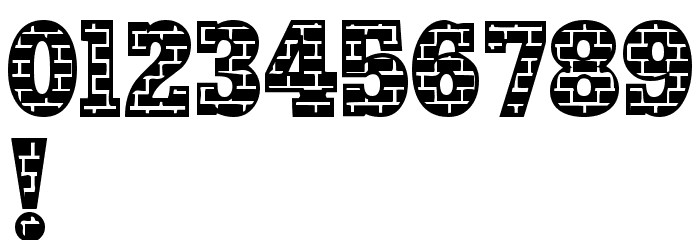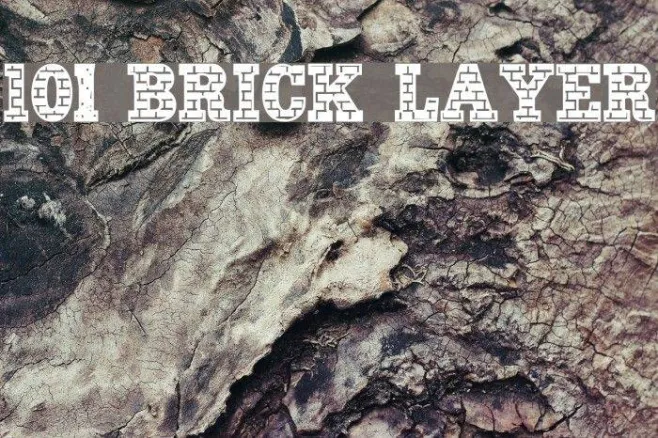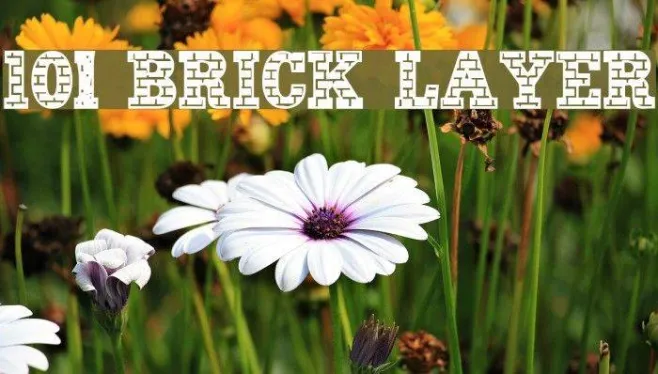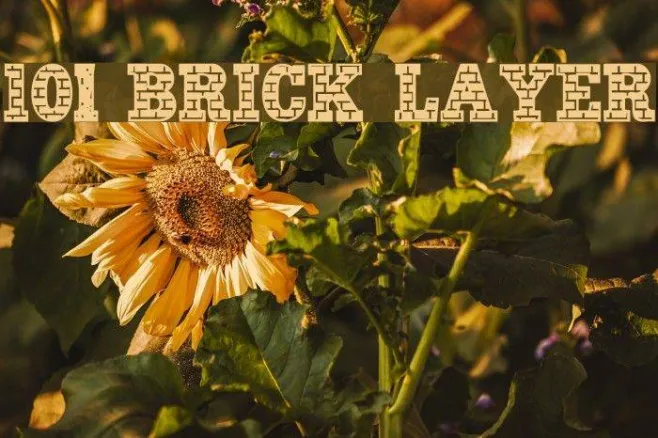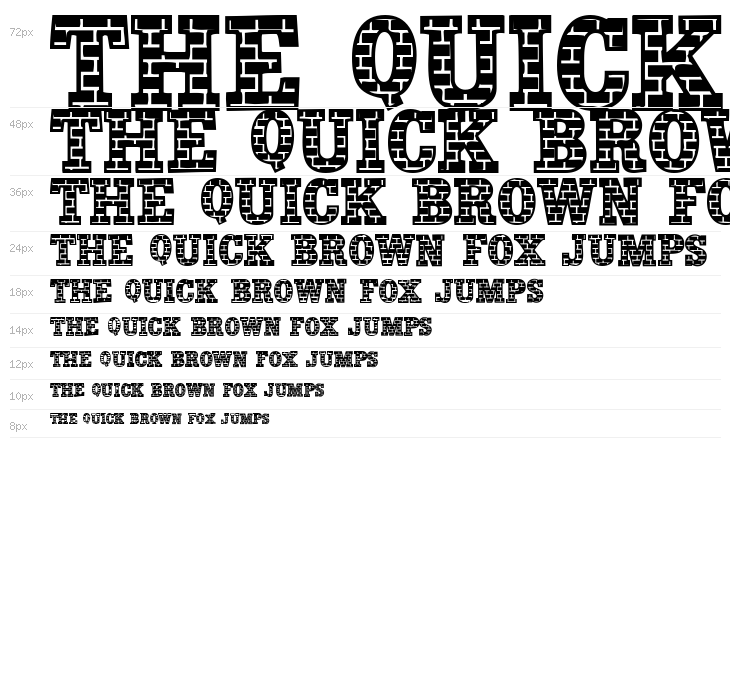
101! Brick Layer Font
101! Brick Layer Description
This font features a bold, decorative style with a unique brick pattern filling each character. The uppercase and lowercase letters, as well as numbers, are designed with a consistent brick motif that gives a textured, urban feel. The characters are wide and bold, making them stand out prominently. This font is ideal for projects that require a strong visual impact, such as posters, headlines, or branding materials. The brick pattern adds a playful yet sturdy aesthetic, perfect for creative and unconventional designs.
| Proposed Projects | Ideal for posters, headlines, branding materials, and creative projects requiring a strong visual impact. |